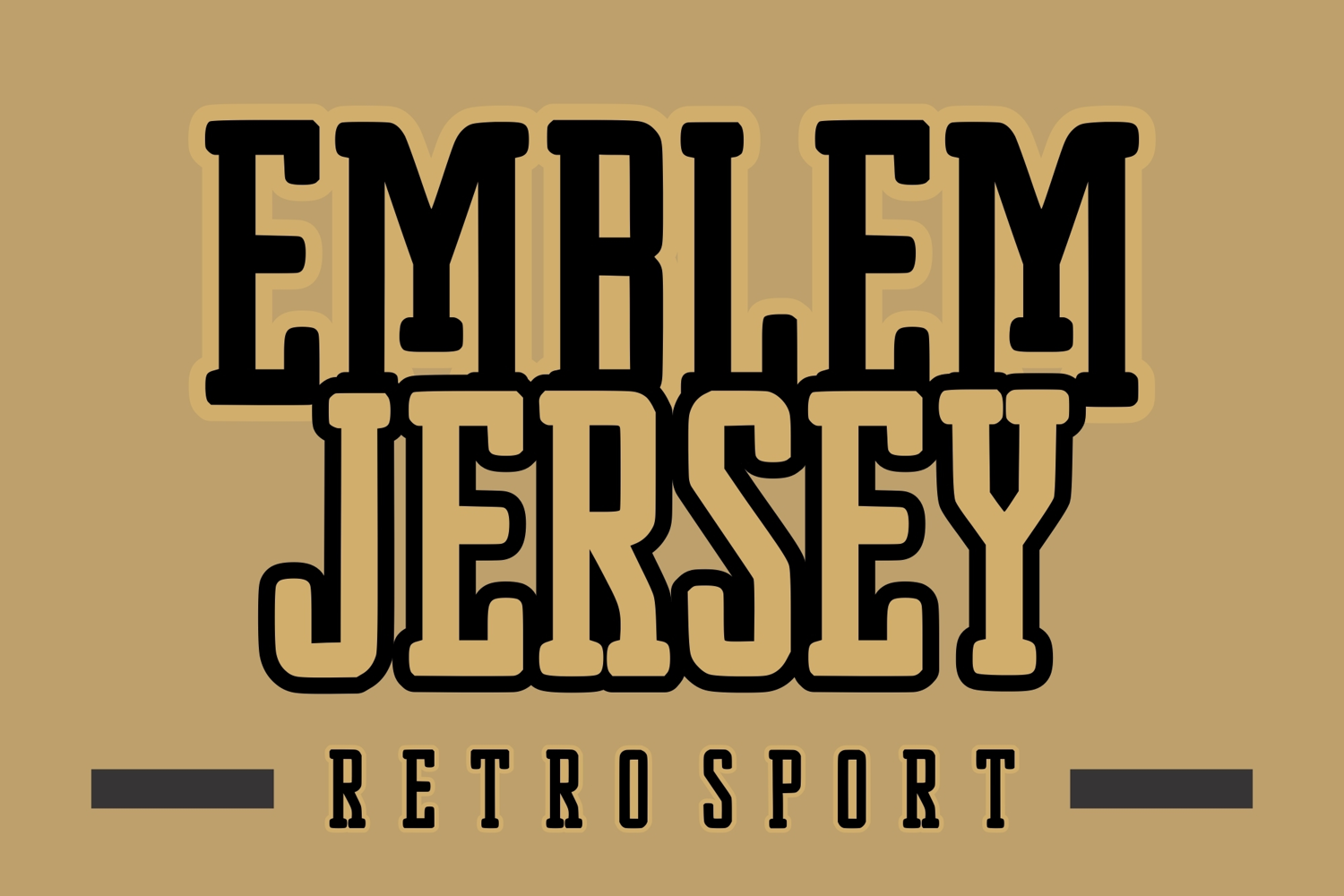
Emblem Jersey
Emblem Jersey is an authentic sports classic display font, inspired by college typography. This bold and dynamic font captures the energy and excitement of sports. It features a strong and commanding look, with thick lines and sharp edges that convey power and athleticism.